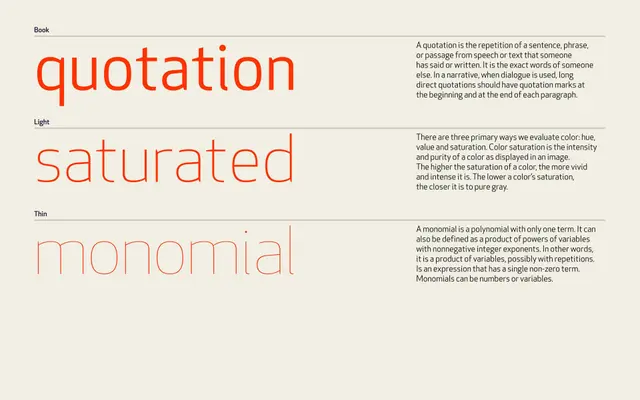
A seven-weight grotesque sans with italics throughout, offering extensive OpenType features including small caps, old-style figures and alternate letterforms for a, g and y.
Apex New spans seven weights from Thin to Ultra, each with a matching italic, giving broad coverage for both text and display use. The character set includes Latin Extended with thorough diacritic support, and OpenType features run to small caps, lining and old-style figures, tabular and proportional variants, superscript, subscript, scientific inferiors and an extensive fractions set. Stylistic sets offer single-storey a and g alternates, a simplified y, and curly quotation mark variants.
Apex New is a grotesque sans-serif with a broad weight range from Thin to Ultra, featuring both upright and italic cuts with extensive OpenType features including small caps, old-style figures and multiple stylistic sets for alternates such as single-storey a and g.